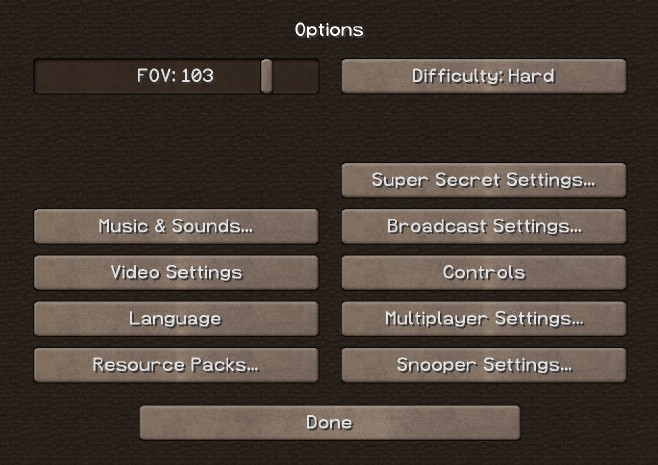
Lithos HD Font Add-On
About Lithos HD Font Add-On
Lithos HD Font Add-On is smooth, legible typeface that’s still mostly faithful. It preserves the default character widths, and provides a wide variety of accented characters.